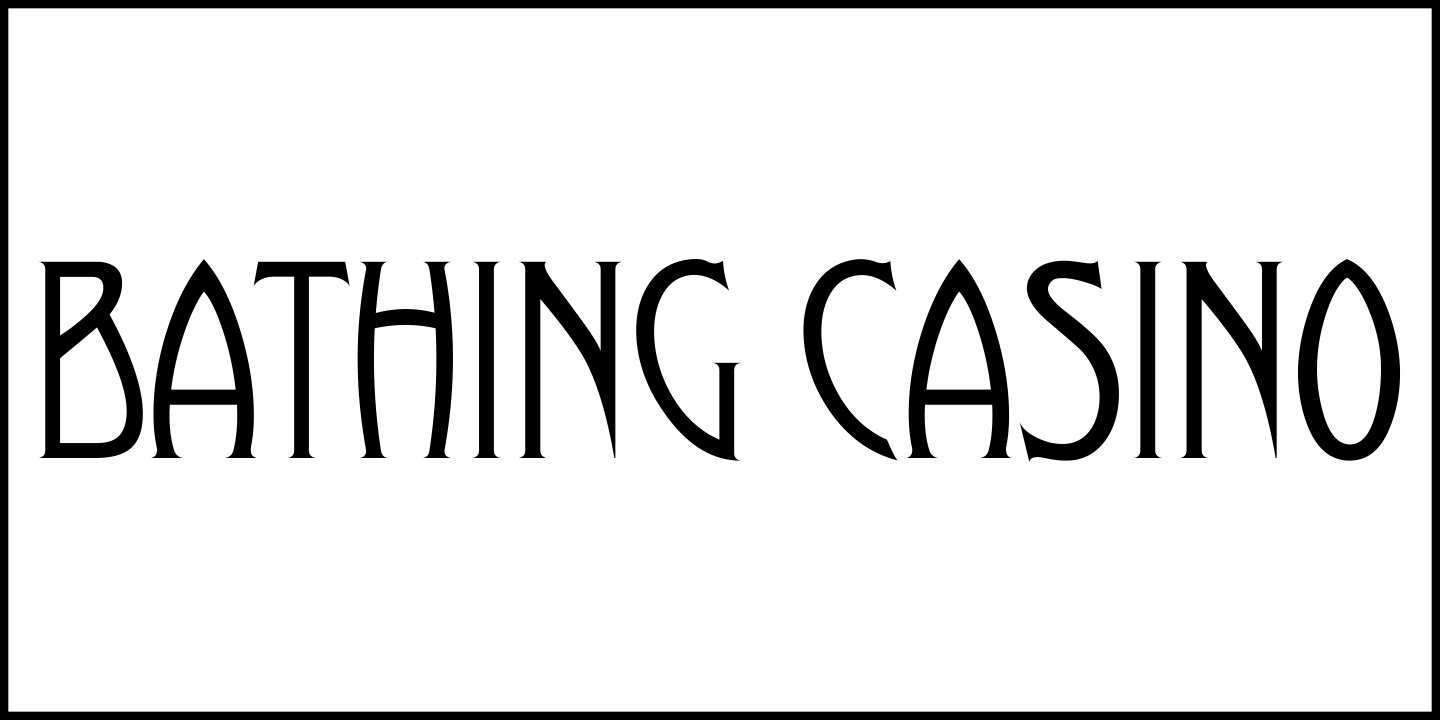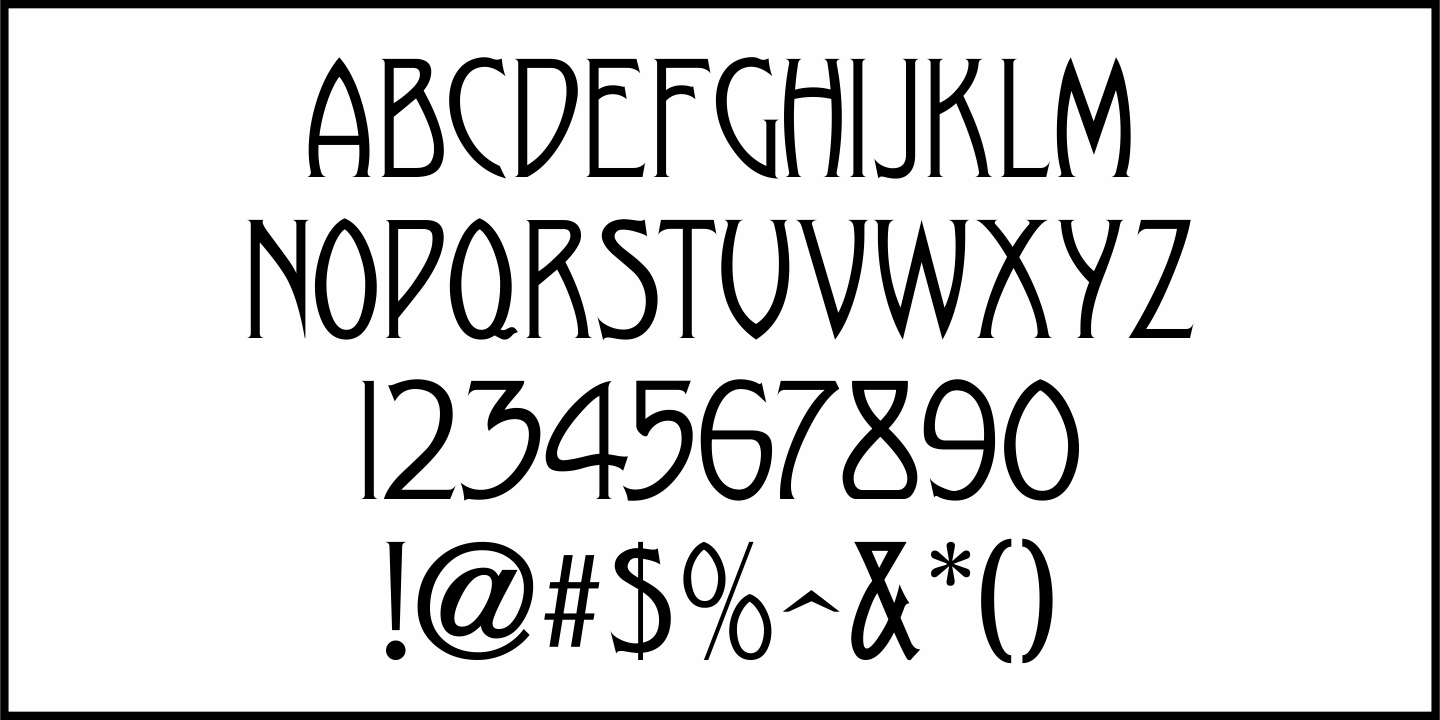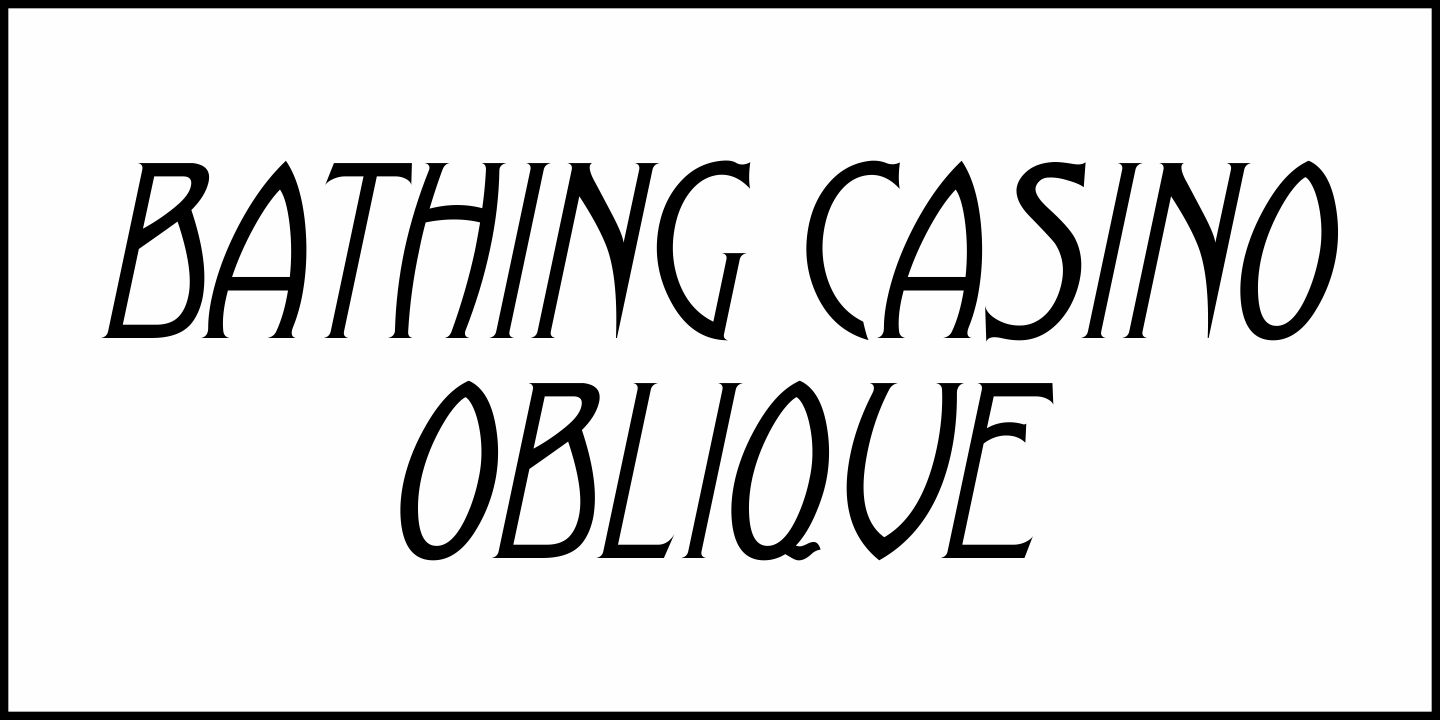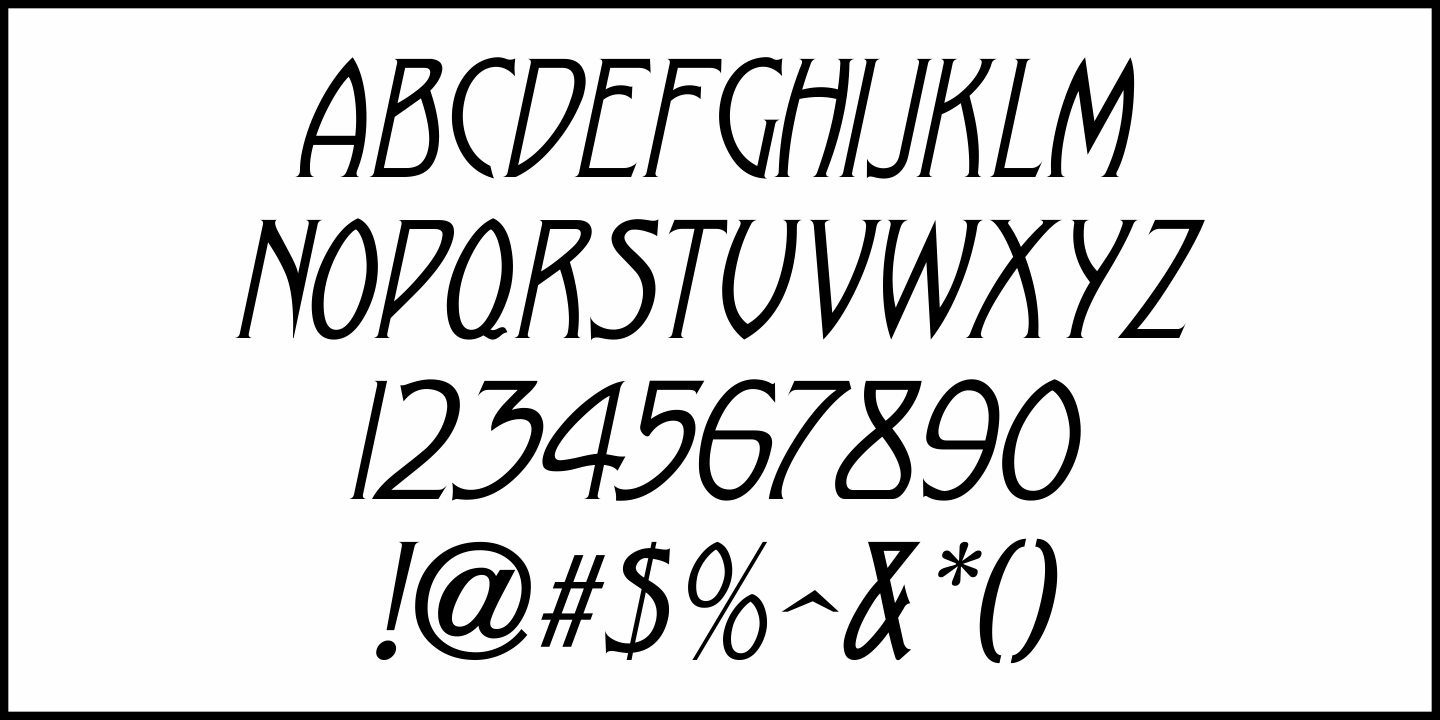
Bathing Casino
Here's a decorative Art Nouveau display face from John M. Clark's Alphabets - Book 1 (1906), now available as Bathing Casino JNL in both regular and oblique versions.
A bathing casino was actually a bathing pavilion - in the sense of offering a swimming pool for 'bathing', changing rooms, a restaurant or snack bar, the selling of sundries, swimsuits and even souvenirs. They were quite popular in the early and formative years of Miami Beach, Florida.
Bathing Casino JNL Regular by Jeff Levine Fonts